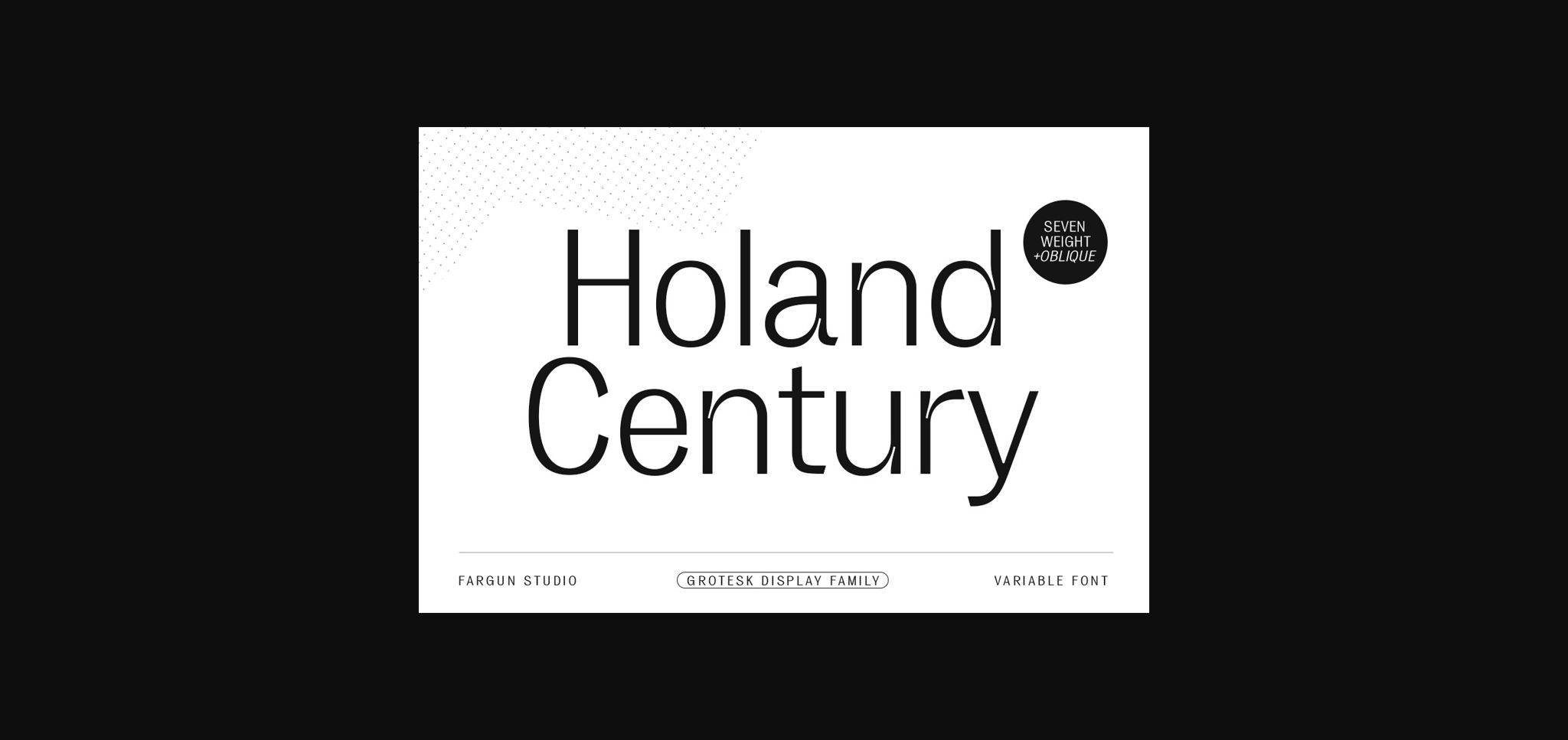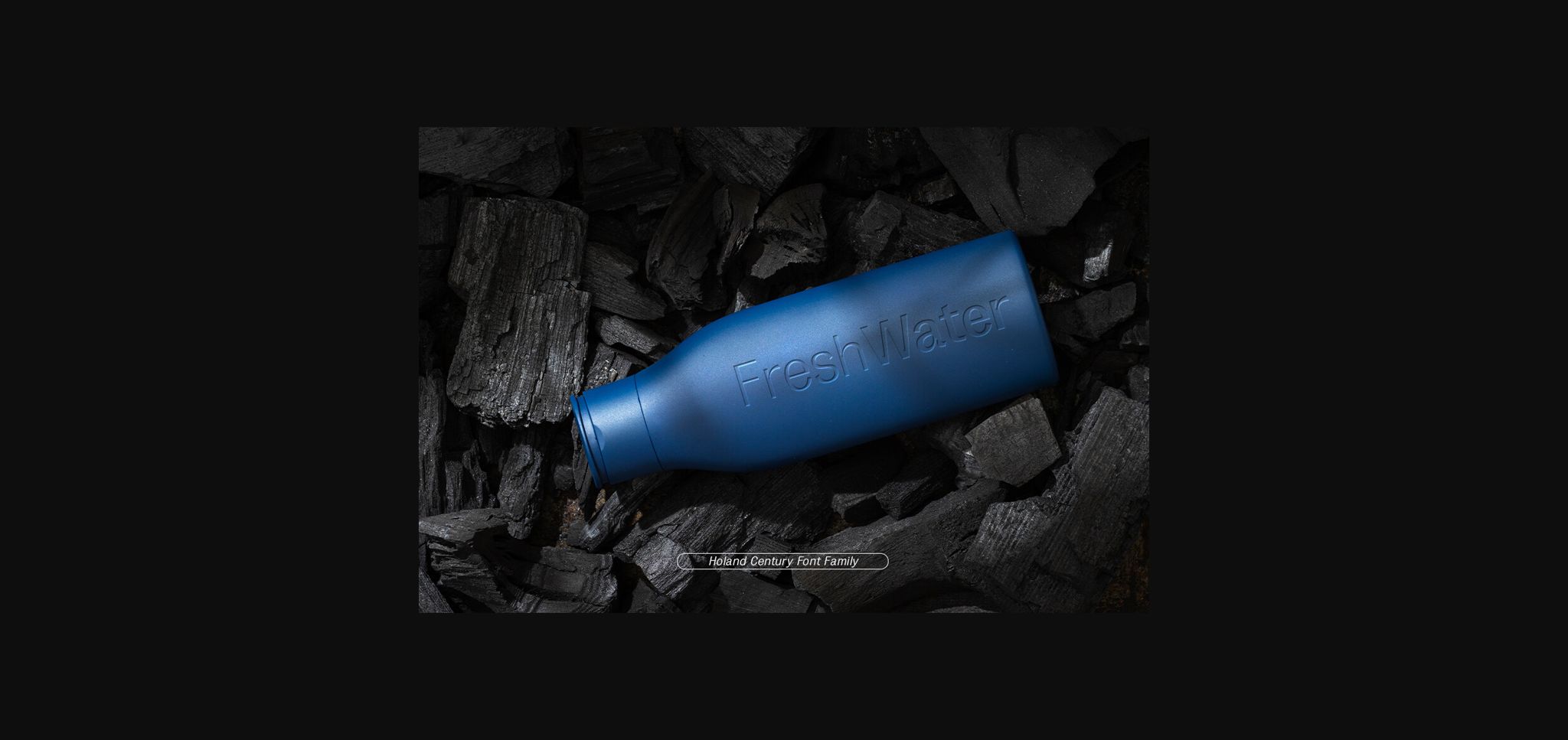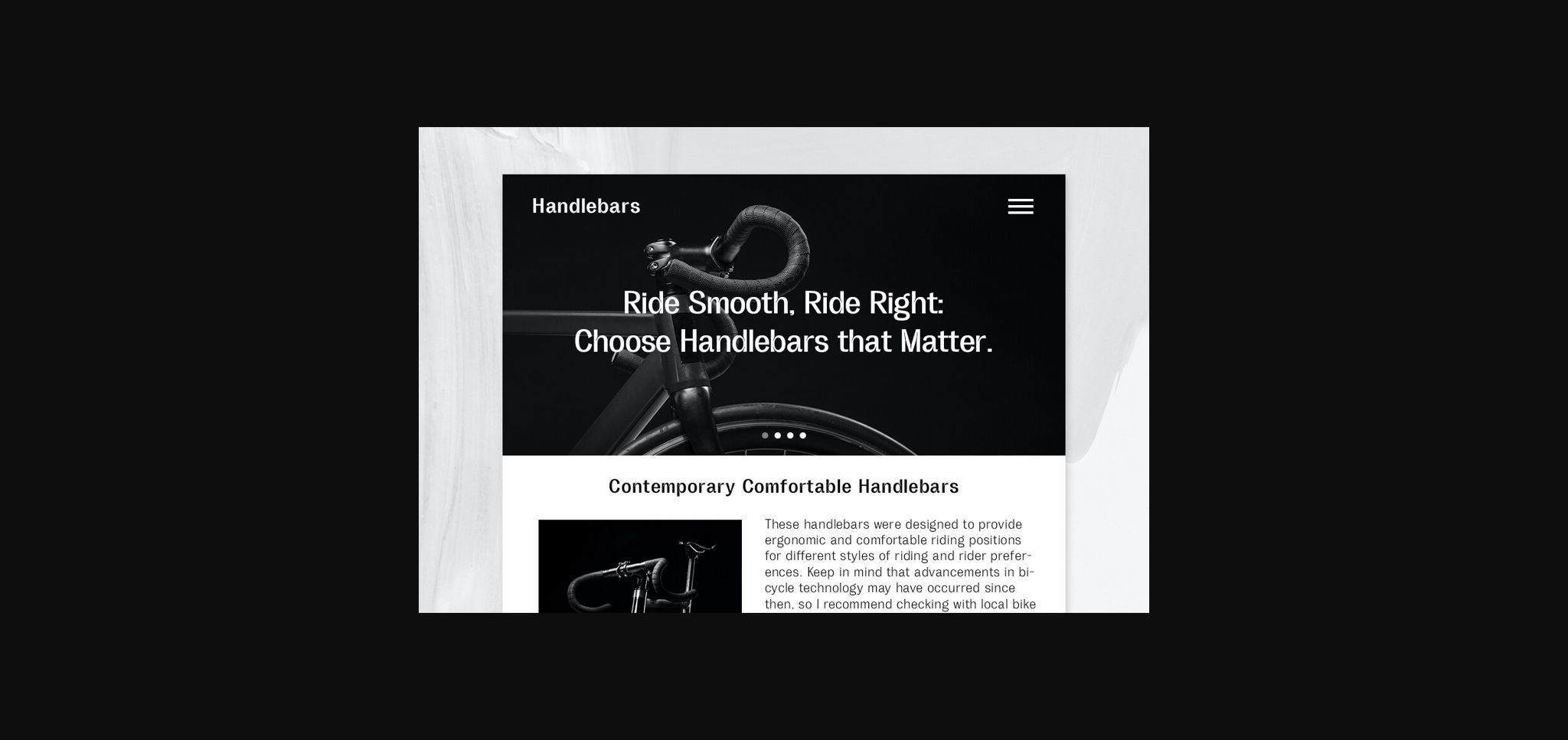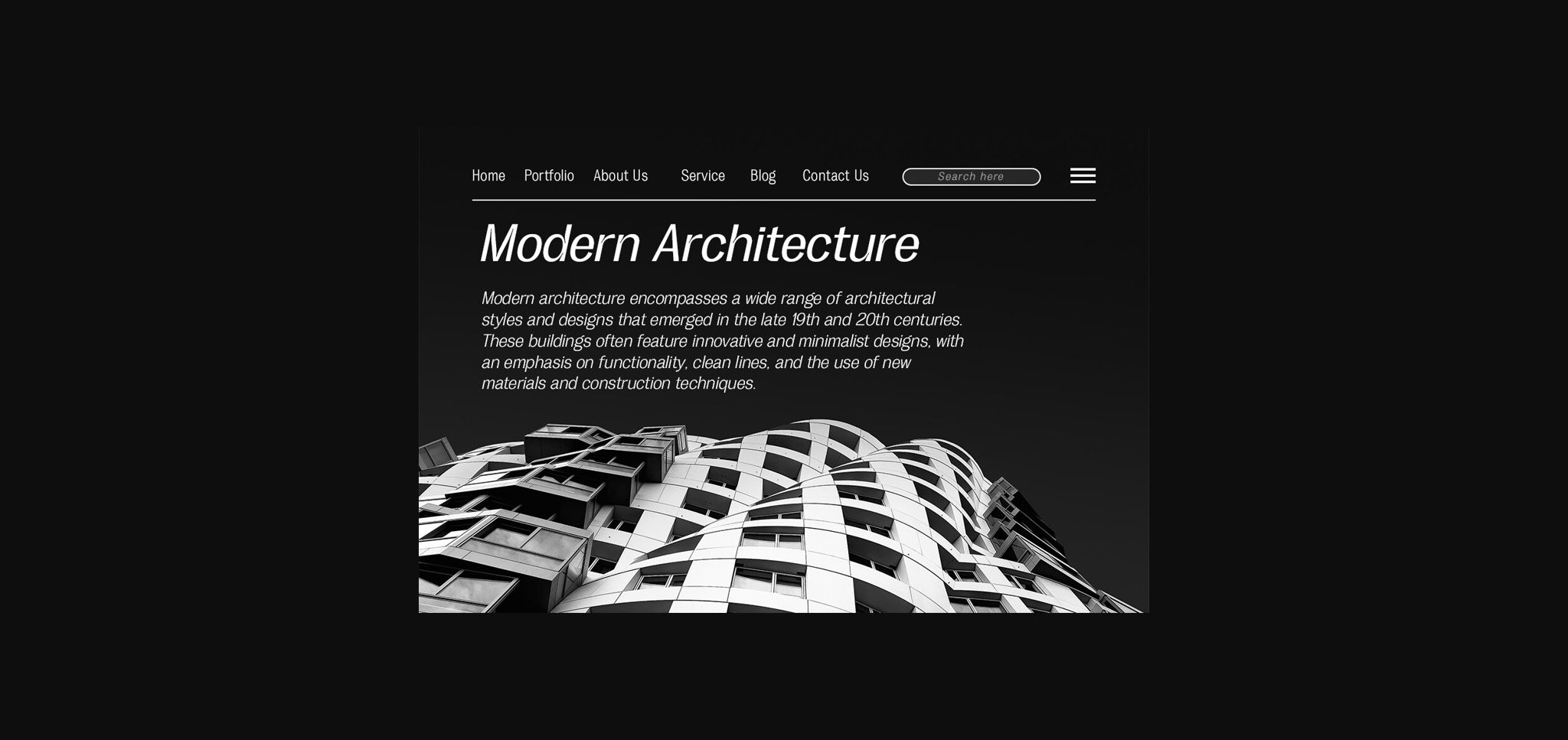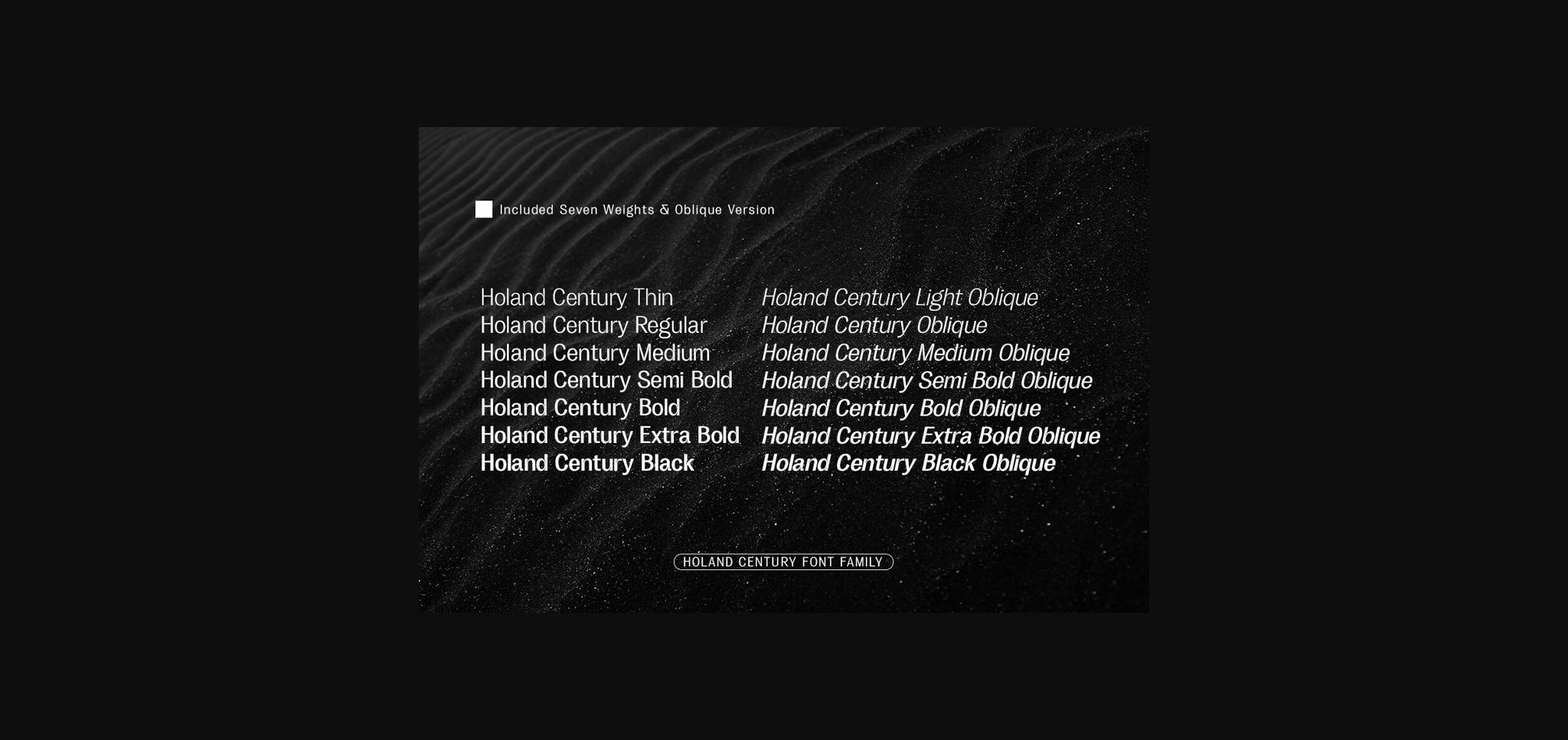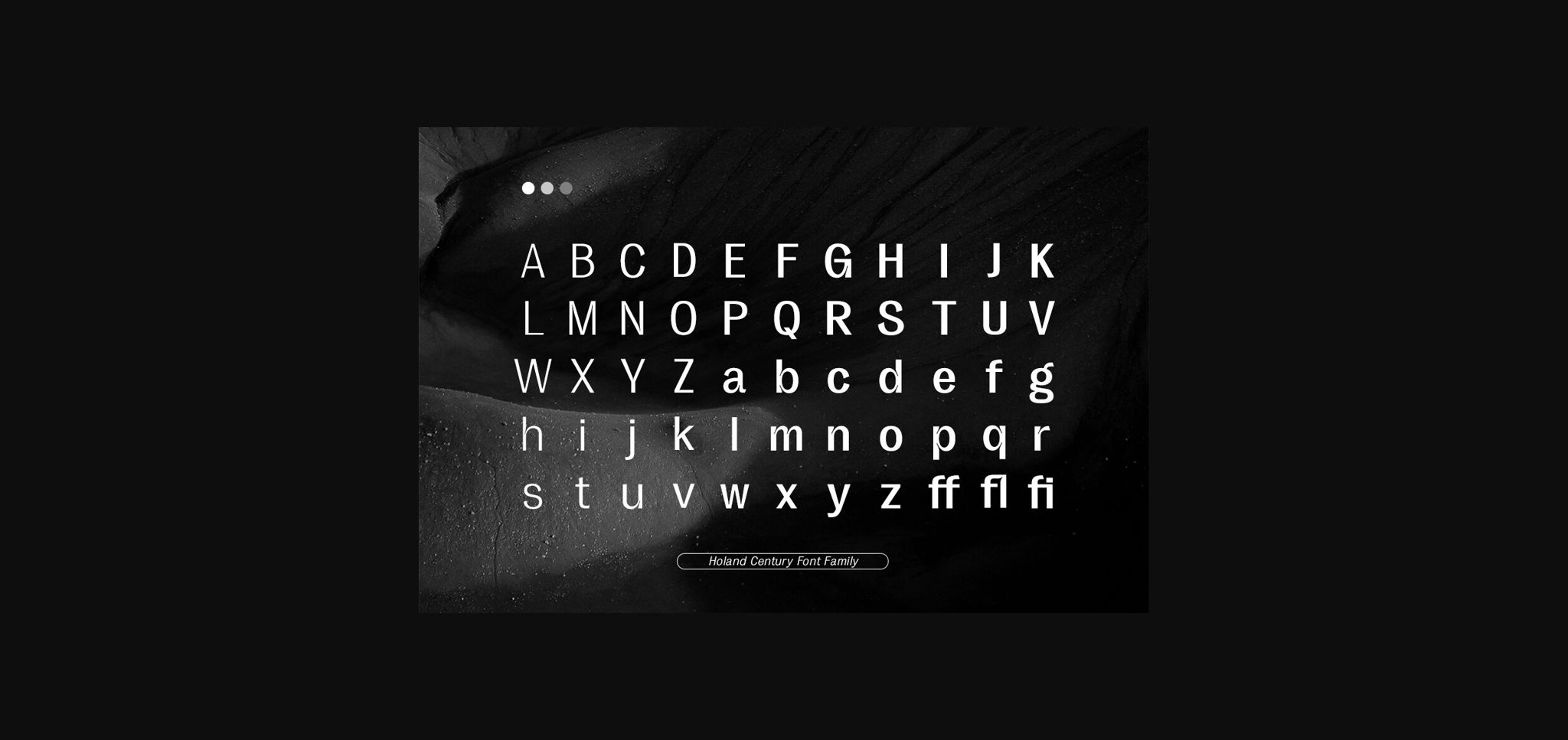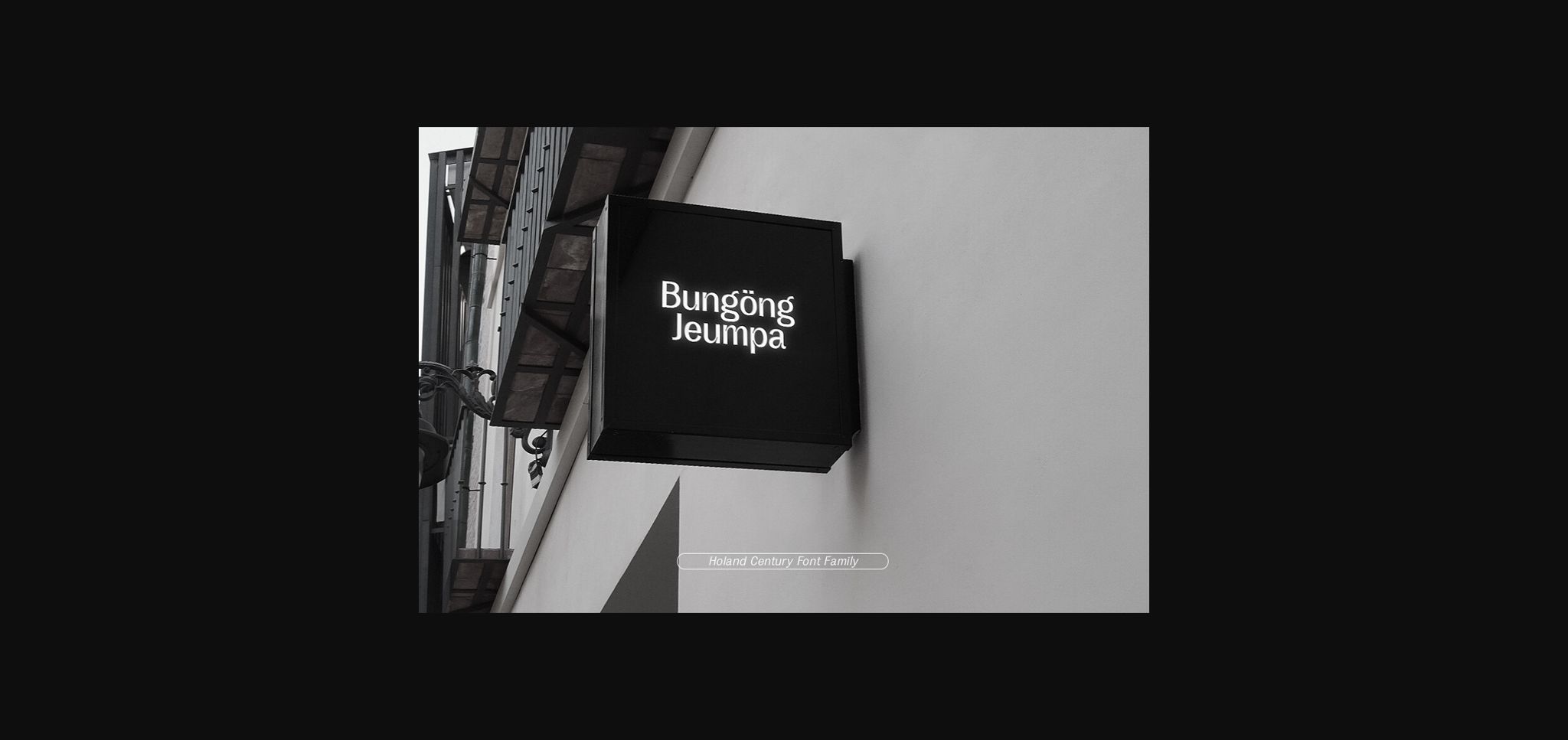
Holand Century Font
About Holand Century Font
Holand Century is a well-rounded font family that blends traditional sans-serif design elements with contemporary aesthetics. Its extensive range of styles, versatility in application, and support for various languages make it a valuable choice for designers looking to create clean, elegant, and visually impactful typography across a broad spectrum of design projects.